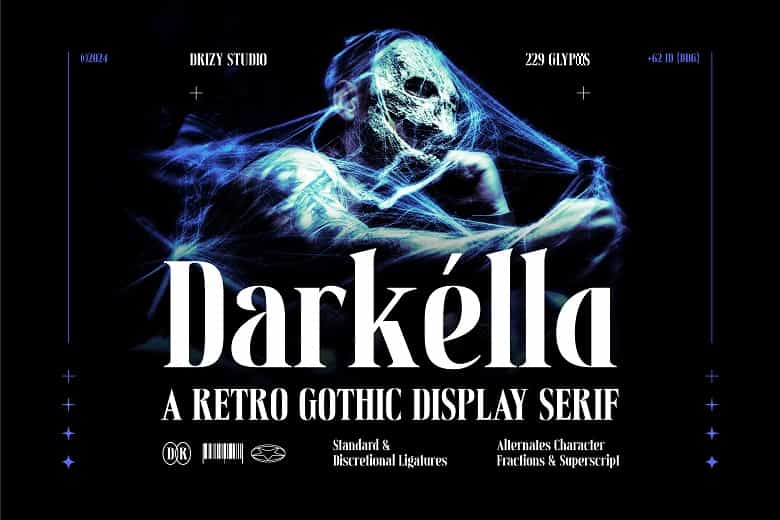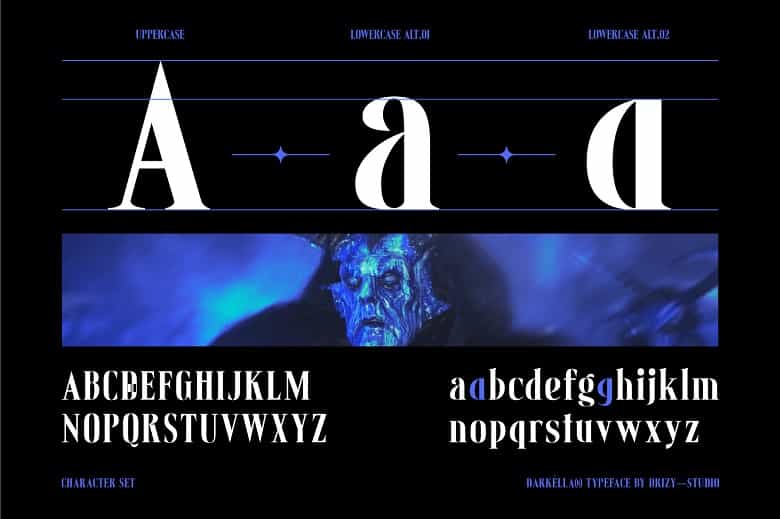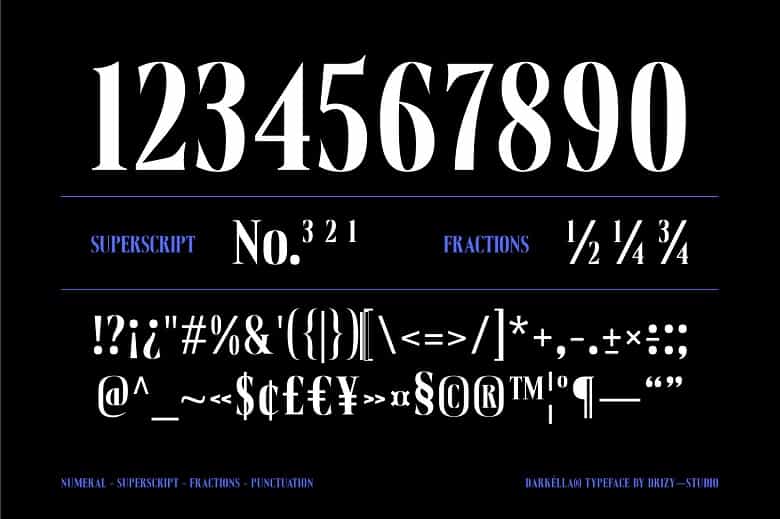
The font named Darkella is a retro display serif font perfect combination of vintage beauty and mysterious darkness which will suit any Halloween design. A stout and highly detailed design, Darkella evokes the spirit of gothic typography with an eye towards old-school nostalgia.